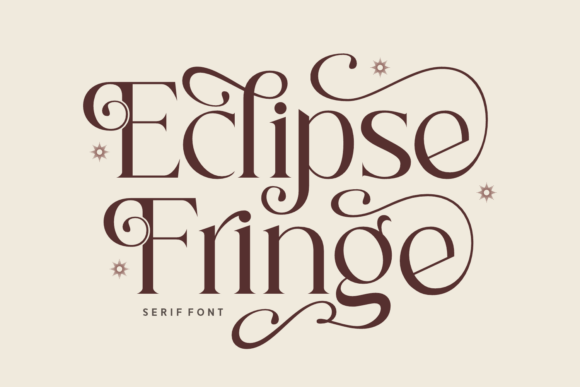
Eclipse Fringe Font: Elevate Your Brand with Elegance and Sophistication
In the world of typography, a well-crafted font can make all the difference in elevating a brand’s visual identity. Introducing Eclipse Fringe, a modern serif typeface designed specifically for logo design, branding, and stylish editorial projects. This exquisite font seamlessly blends graceful curves with strong letterforms, creating a unique and captivating visual experience that feels both feminine and assertive.
The Art of Elegance: Design Features of Eclipse Fringe
Eclipse Fringe boasts a distinctive design that sets it apart from other serif typefaces. Its flourished details and artistic flow make it particularly well-suited for boutique branding, skincare and beauty packaging, florist logos, and upscale product labels. The font’s elegant curves and refined lines evoke a sense of sophistication, while its strong letterforms ensure a sense of confidence and assertiveness.
Crafting a Story with Beauty and Clarity
Eclipse Fringe is more than just a font – it’s a tool for brands to tell their story with beauty and clarity. Its unique design allows it to stand out in minimalist layouts, adding a touch of elegance and refinement to any visual project. Whether you’re looking to create a luxurious brand identity, design eye-catching packaging, or craft engaging editorial content, Eclipse Fringe is the perfect choice.
Perfect for Boutique Branding and Beyond
Eclipse Fringe’s versatility makes it an excellent choice for a wide range of applications, including:
- Boutique branding: Create a luxurious and sophisticated brand identity that reflects your values and personality.
- Skincare and beauty packaging: Elevate your product packaging with a font that exudes elegance and refinement.
- Florist logos: Add a touch of whimsy and charm to your logo with Eclipse Fringe’s flourished details.
- Upscale product labels: Create labels that reflect the high-quality and sophistication of your products.
Why Choose Eclipse Fringe?
With so many fonts available, why choose Eclipse Fringe? Here are just a few reasons why this modern serif typeface stands out:
- Unique design: Eclipse Fringe’s blend of graceful curves and strong letterforms creates a truly unique visual experience.
- Versatility: This font is suitable for a wide range of applications, from boutique branding to editorial projects.
- Elegance and sophistication: Eclipse Fringe adds a touch of refinement and luxury to any visual project.
Tips for Using Eclipse Fringe Effectively
To get the most out of Eclipse Fringe, here are a few tips for using this beautiful font effectively:
- Pair with contrasting fonts: Combine Eclipse Fringe with a sans-serif font for a striking contrast that adds visual interest.
- Use in moderation: While Eclipse Fringe is a beautiful font, it’s best used in moderation to avoid overwhelming the viewer.
- Experiment with sizes and colors: Play with different sizes and colors to create a unique visual hierarchy that reflects your brand’s personality.
Eclipse Fringe is a stunning modern serif typeface that offers a unique blend of elegance and sophistication. With its flourished details, artistic flow, and strong letterforms, this font is perfect for brands looking to elevate their visual identity and tell their story with beauty and clarity. Whether you’re a boutique brand, skincare company, or florist, Eclipse Fringe is the perfect choice for adding a touch of refinement and luxury to your visual projects.